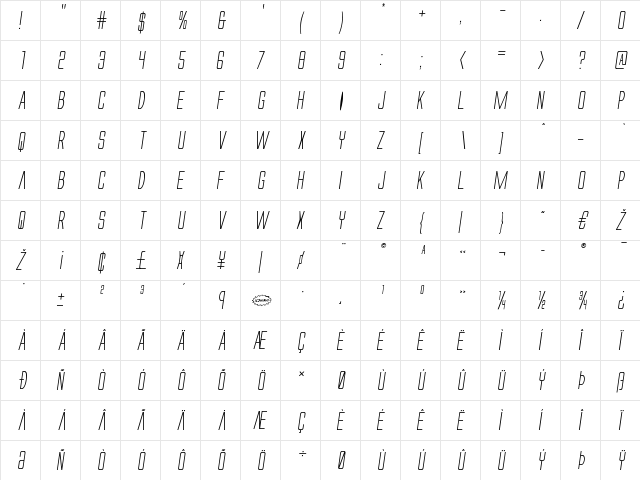
Alien League Italic Italic
Design Context for Alien League Italic Typeface
Alien League Italic offers clean, dependable letterforms without strong stylistic allegiance, making it a practical choice for designers who need flexibility. Its italic angle brings a sense of urgency and motion to the letterforms.